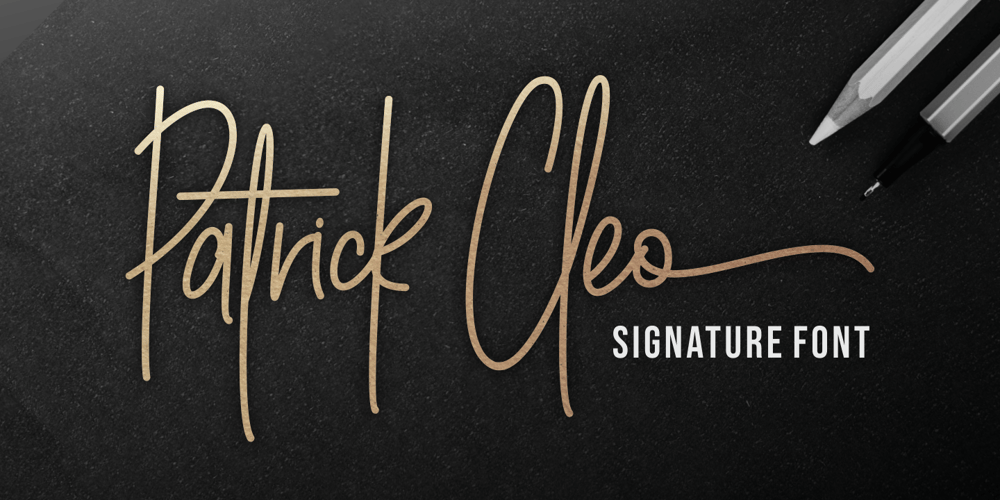
Patrick Cleo Font Family was designed by Riyadh Rahman and published by Ergibi Studio. Patrick Cleo contains 1 styles and family package options. Patrick Cleo is a sophisticated signature font in manuscript style and with an elegant ink flow.Patrick Cleo has swashes for the lowercase only, which makes it perfect for projects that need an elegant glow, like logos, wedding designs, branding, social media posts, advertisements, product packaging, product designs, labels, photography, watermarks, invitations, stationery and any project that requires a handwriting touch.